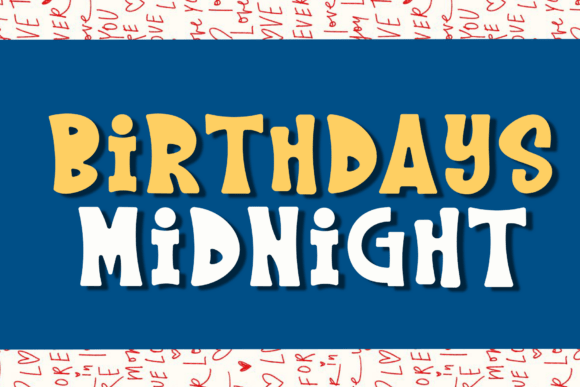
Evaluating the Birthdays Midnight Typeface
In the realm of digital typography, display fonts serve a specific purpose: to grab attention and establish an immediate mood. The Birthdays Midnight typeface is a prime example of this category, designed specifically for headers and short bursts of text that require high visual impact. Unlike standard serif or sans-serif fonts intended for long-form reading, this font relies on exaggerated shapes, retro aesthetics, and bold color contrasts to communicate energy. For designers, marketers, and event planners, understanding the specific utility of Birthdays Midnight is essential before integrating it into a project. This evaluation explores the characteristics of the font, its ideal applications, and the practical considerations required to use it effectively.
Defining the Visual Identity
The Birthdays Midnight font is characterized by a distinct set of visual traits that separate it from more traditional block lettering. At its core, it features chunky, rounded, and condensed block letters. These geometric choices create a sense of solidity while maintaining a softness through the rounded edges, preventing the text from appearing too rigid or industrial. A defining feature of this typeface is its subtly uneven baseline. Rather than sitting perfectly straight on a horizontal line, the letters wobble slightly, mimicking the look of hand-painted signage or a playful, human touch.
Another critical aspect of its design is the layering potential inherent in its structure. As seen in promotional previews, the font often utilizes a dramatic contrast between yellow uppercase and white lowercase elements. While the font file itself may provide these as stylistic sets or alternate glyphs, the design intent is clearly focused on creating depth and dimension. This "loud" aesthetic channels a fun, retro vibe reminiscent of 1970s graphic design, where saturation and texture were used to convey excitement. The result is a typeface that feels infectious and memorable, but one that demands careful handling to avoid visual clutter.
Reasons to Consider This Typeface
Designers might be drawn to Birthdays Midnight when a project requires an immediate injection of personality. In a sea of clean, minimalist corporate branding, this font offers a stark alternative that signals celebration and informality. It is particularly effective for projects where the goal is to evoke nostalgia or a sense of carefree joy. The retro aesthetic appeals to audiences looking for a connection to past eras of design, making it a strong candidate for brands targeting younger demographics who appreciate vintage-inspired trends.
Furthermore, the condensed nature of the letters allows for larger point sizes within limited horizontal spaces. This makes it efficient for headlines where space is at a premium but impact cannot be compromised. The rounded forms also make the text approachable, reducing the perceived aggression often found in heavy, square-edged display fonts. For children's content or family-oriented events, the "hand-painted" look suggests warmth and creativity, aligning well with themes of imagination and play.
Ideal Applications and Use Cases
The versatility of Birthdays Midnight is best realized in specific contexts where its unique traits enhance the message rather than distract from it. Below are situations where this typeface serves as a strong fit:
- Birthday Party Invitations: The primary use case for this font is evident in its name. For birthday invitations, the playful baseline and chunky letters immediately signal a festive occasion. The ability to layer colors adds a tactile quality to digital invites or printed cards.
- Social Media Graphics: In feeds dominated by static imagery, social media posts utilizing this font can stand out due to their funky, high-contrast appearance. It works well for story highlights, event announcements, or promotional banners requiring a quick read.
- Nostalgic Branding: Brands aiming to position themselves as fun, accessible, or retro-chic can use this font for logo marks or campaign headers. It is suitable for cafes, toy stores, or entertainment venues that want to project a cheerful atmosphere.
- Children's Posters and Merchandise: The rounded, non-threatening shapes make it safe and engaging for designs targeting children. T-shirts, posters, and classroom decorations benefit from the lively energy the font provides.
Tradeoffs and Design Considerations
While Birthdays Midnight offers significant visual appeal, it comes with inherent tradeoffs that must be weighed during the selection process. The most significant limitation is legibility. The uneven baseline and stylized shapes can hinder readability if used for anything other than large headlines. Attempting to set body copy or paragraphs in this typeface will likely result in reader fatigue and a breakdown in communication. It is strictly a display font.
Additionally, the "loud" nature of the design means it competes for attention. If paired with other complex textures, busy backgrounds, or equally bold typefaces, the overall composition can become chaotic. The dramatic contrast between colors, such as the yellow and white mentioned in its description, requires a background that supports these hues without washing them out. Poor color choices can render the text invisible or difficult to distinguish.
There is also the consideration of audience perception. While the retro vibe is trendy, it may not align with brands seeking a modern, sleek, or serious image. Using this font for a financial report, a medical service, or a luxury brand could send mixed messages about professionalism and reliability. The "hand-painted" look implies imperfection, which is desirable for some projects but detrimental for those requiring precision and authority.
Finally, test the font in context. Create a mockup with your actual content and background images. Pay close attention to how the uneven baseline interacts with surrounding elements and whether the color contrast remains clear on various devices. The layering potential of the font is a powerful tool, but it requires skillful execution to ensure the final output looks intentional rather than messy. By balancing the font's energetic strengths against its readability limitations, designers can make informed choices that elevate their work without compromising clarity.